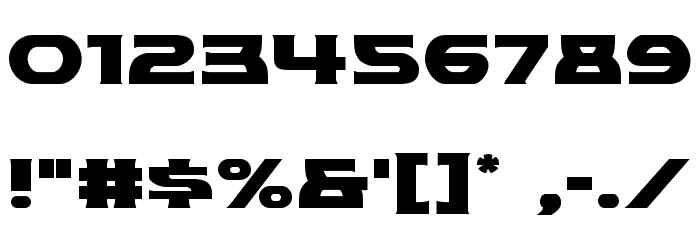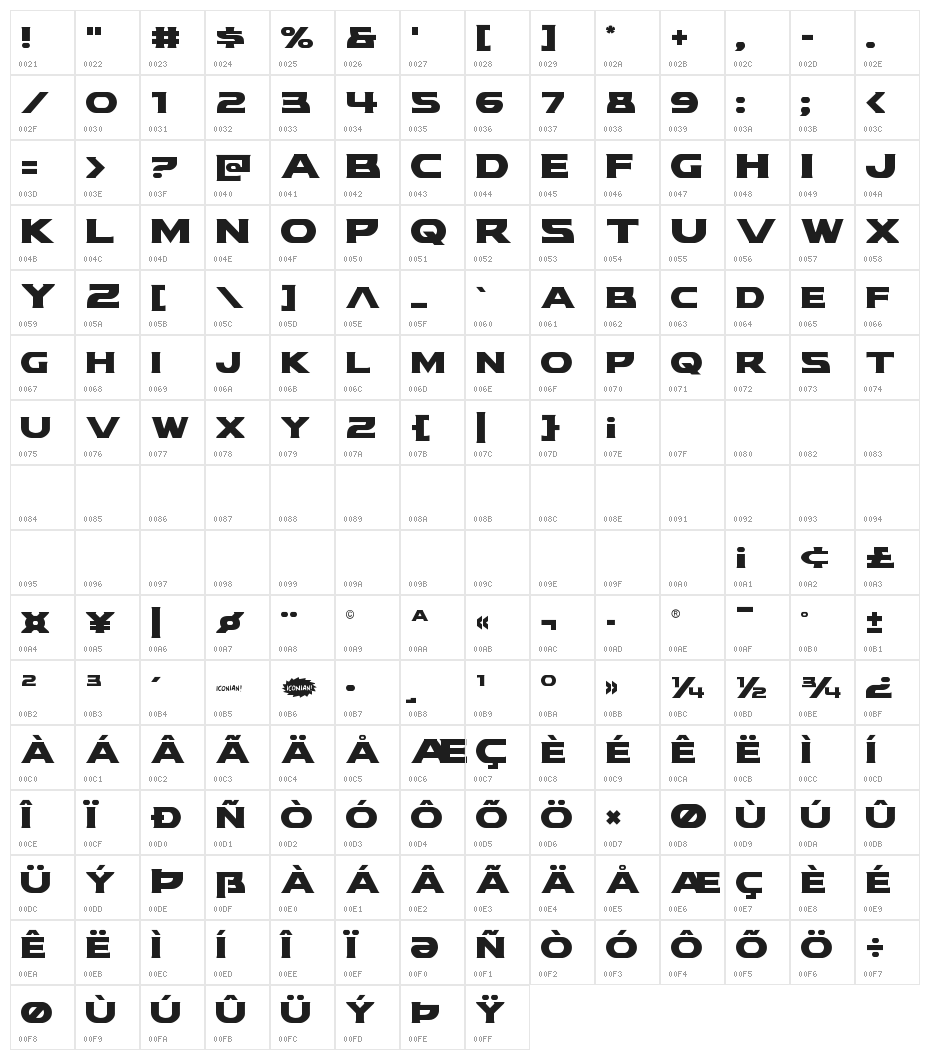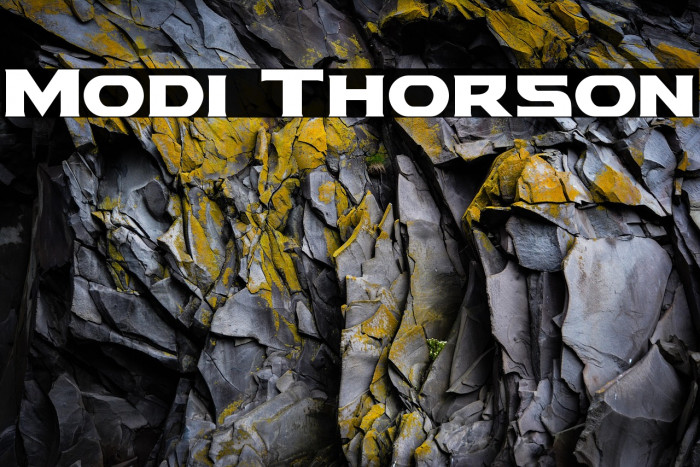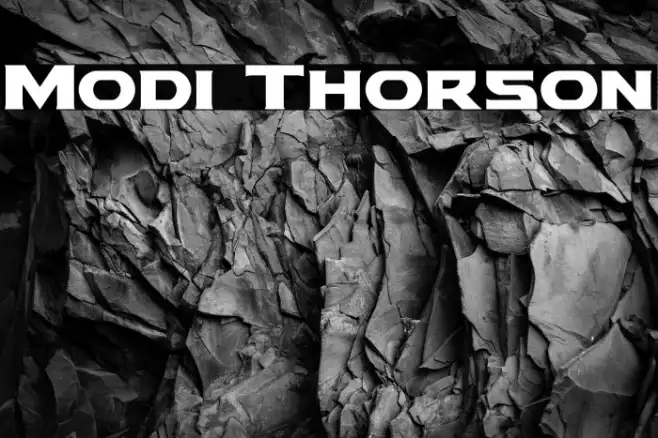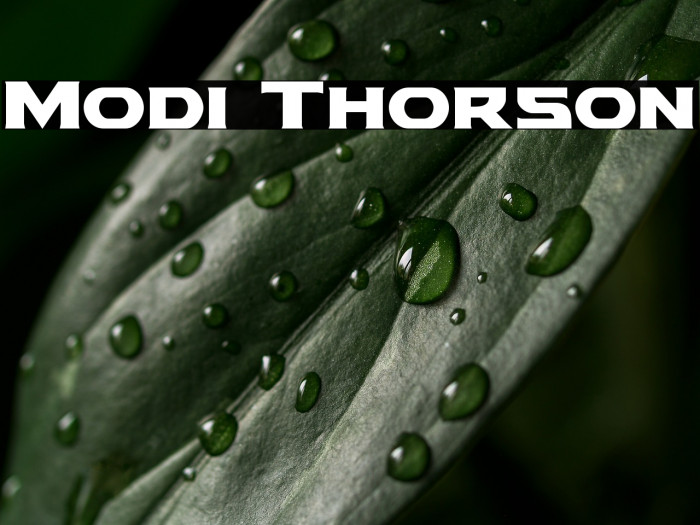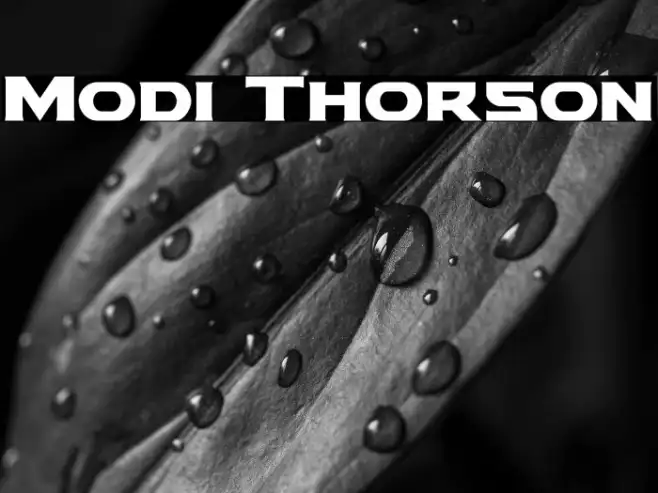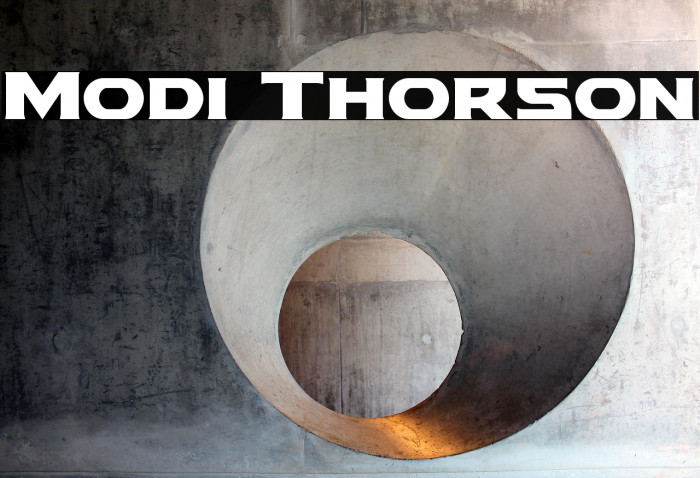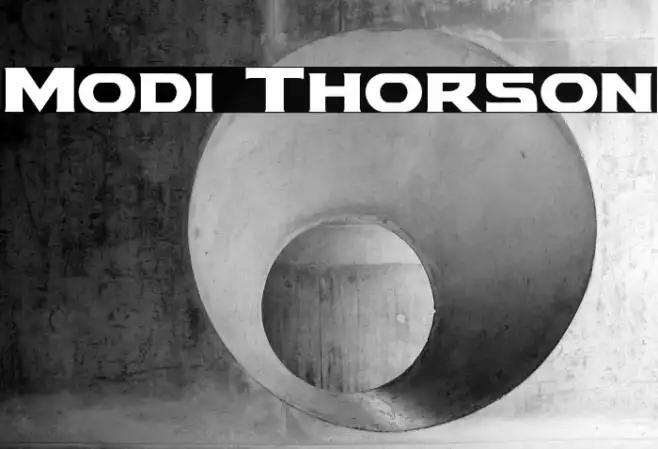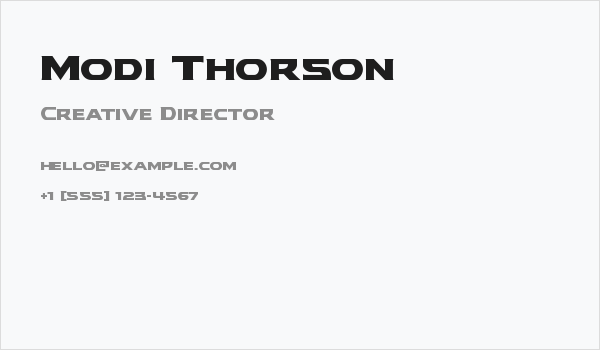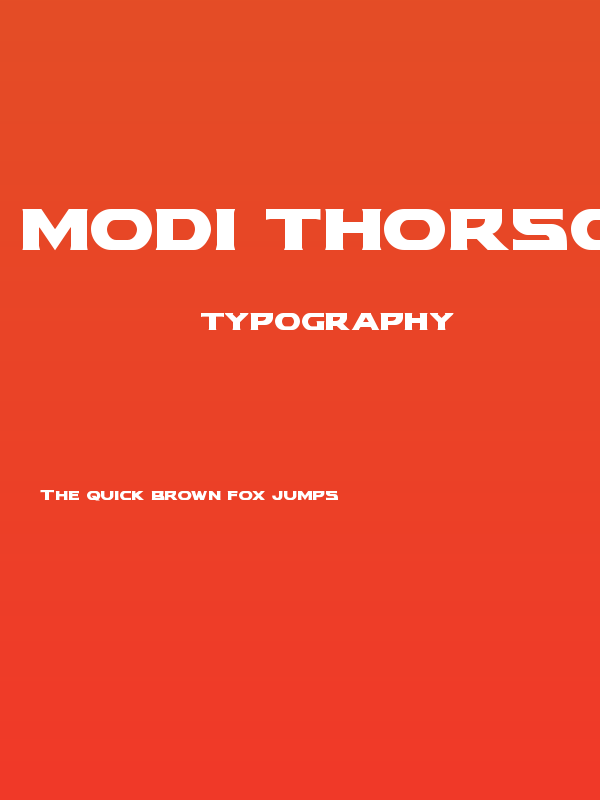
Modi Thorson Font
Modi Thorson Description
This font features a bold and striking design with strong geometric shapes and a modern aesthetic. The characters are wide and have a distinct angular style, giving them a futuristic and dynamic appearance. The uppercase letters are particularly prominent, with sharp edges and a solid presence. The numerals and special characters maintain the same boldness and angularity, ensuring consistency across the font. This style is ideal for making a strong visual impact in any design project.
| Proposed Projects | Ideal for branding, posters, headlines, and any project requiring a strong visual impact. |